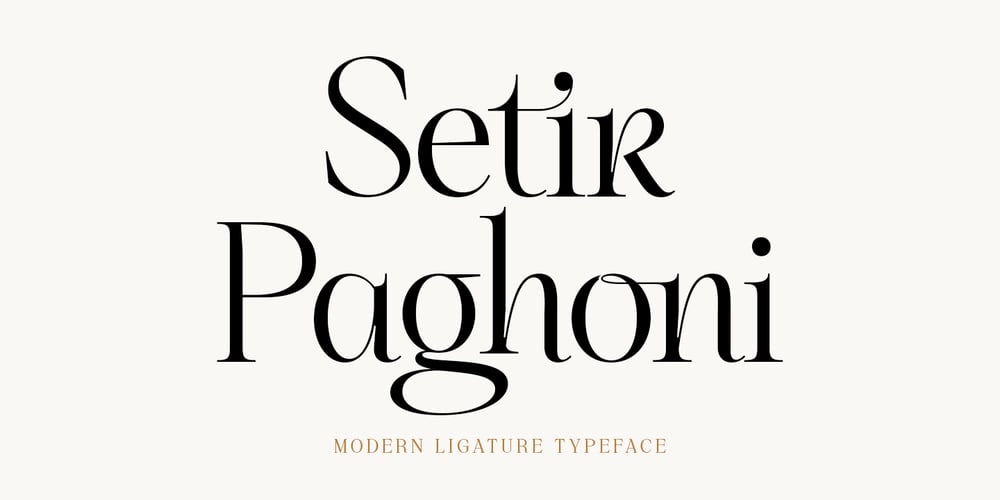
Setir Paghoni Font Family was designed by Muammar Kadafi and published by Attract Studio. Setir Paghoni contains 2 styles and family package options. Setir Paghoni is a modern serif font that uses unique ligatures to connect letters smoothly. Setir Paghoni comes with matching slanted trim. Perfect for adding a unique touch to wordmark logos, fashion headlines, editorial designs, branding projects, magazine titles and more.Included: 2 Weights (Roman & Oblique) PUA Encoded Ligatures Opentype Feature Multilanguange.